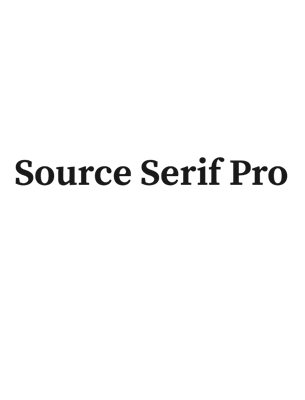
Serif Fonts
Botera
Botera is a elegant font that comes with serif and stencil style.
Bruno
Bruno is a modern classic serif typeface great for fashion related designs.
Robika
Robika is a gorgeous serif typeface with designer finished.
Vesterbro
Vesterbro is a high contrast serif font family that comes with 6 weights.
Monly
Monly is a free, playful and easy to read typeface that comes with serif and sans serif style with two weights each.
Octanis
Octanis is a modern font family that comes with sans serif, serif and slab serif variants.
Sonder
Sonder is an exploration on vintage lettering, featuring rough edges and mark-making textures in both serif and sans-serif fonts.
Yrsa & Rasa
Yrsa & Rasa is a professionally designed open source font family with readability in mind that comes with wide support of languages, 92 in total.
Exodus
Exodus is a display serif that you can download for free for your next personal projects. The full family comes with six distinctive styles, while the free version comes with four.
Butler
Butler is a free serif typeface that comes with a big family. It was inspired by a mix between the Bodoni and Dala Floda family.
Bariol Serif
Bariol serif is the serif version of “Bariol” font. This well designed font retained the font style of its sans serif brother, and also comes with 4 weights and italics.
Designer: Adrià Gómez
Luthier
Foundry: Adobe
Source Serif Pro
Foundry: 10 Dollar Fonts
Zona Pro Free Download
Designer: Oleg Pospelov and Jovanny Lemonad
Oranienbaum Free